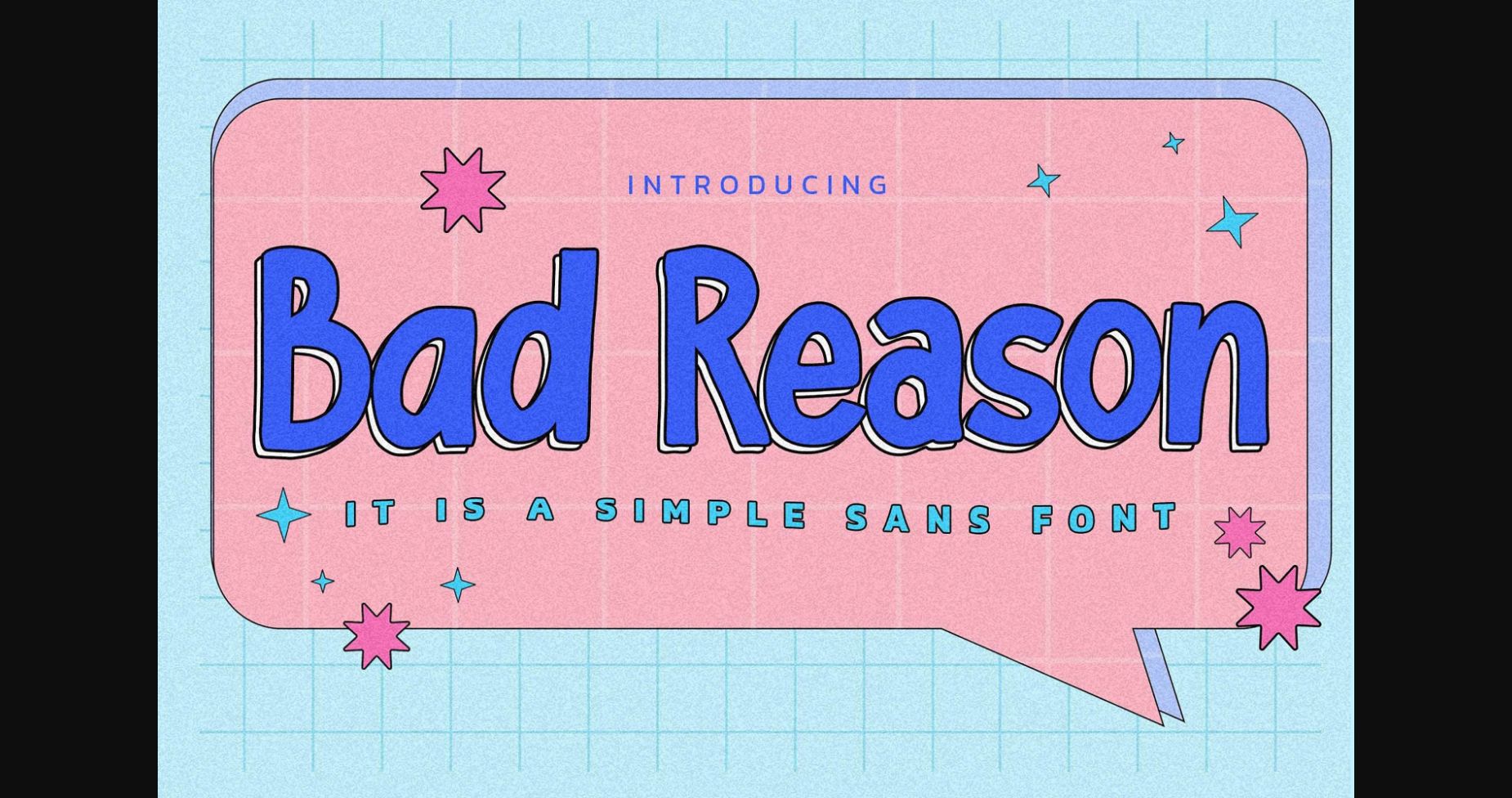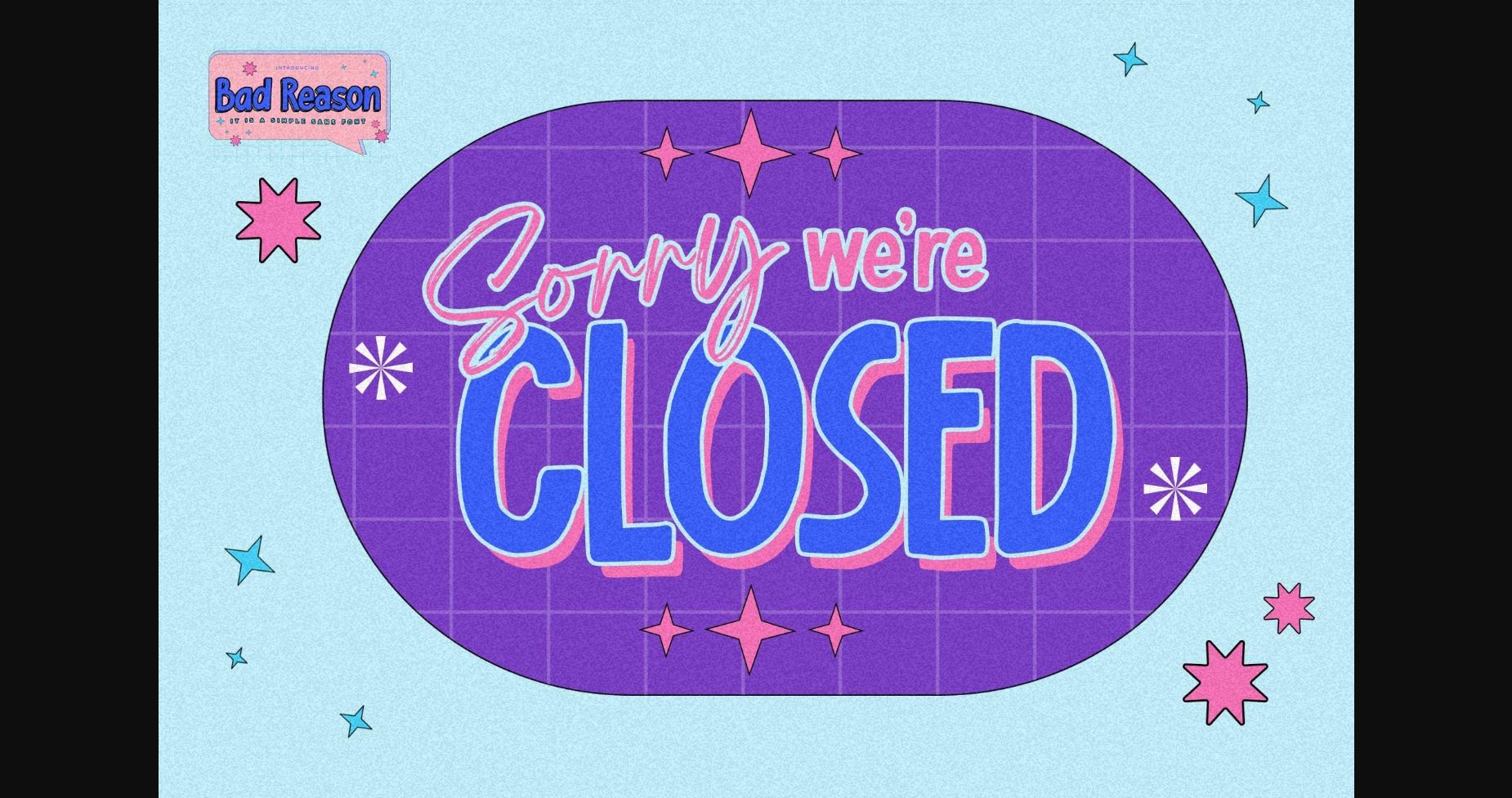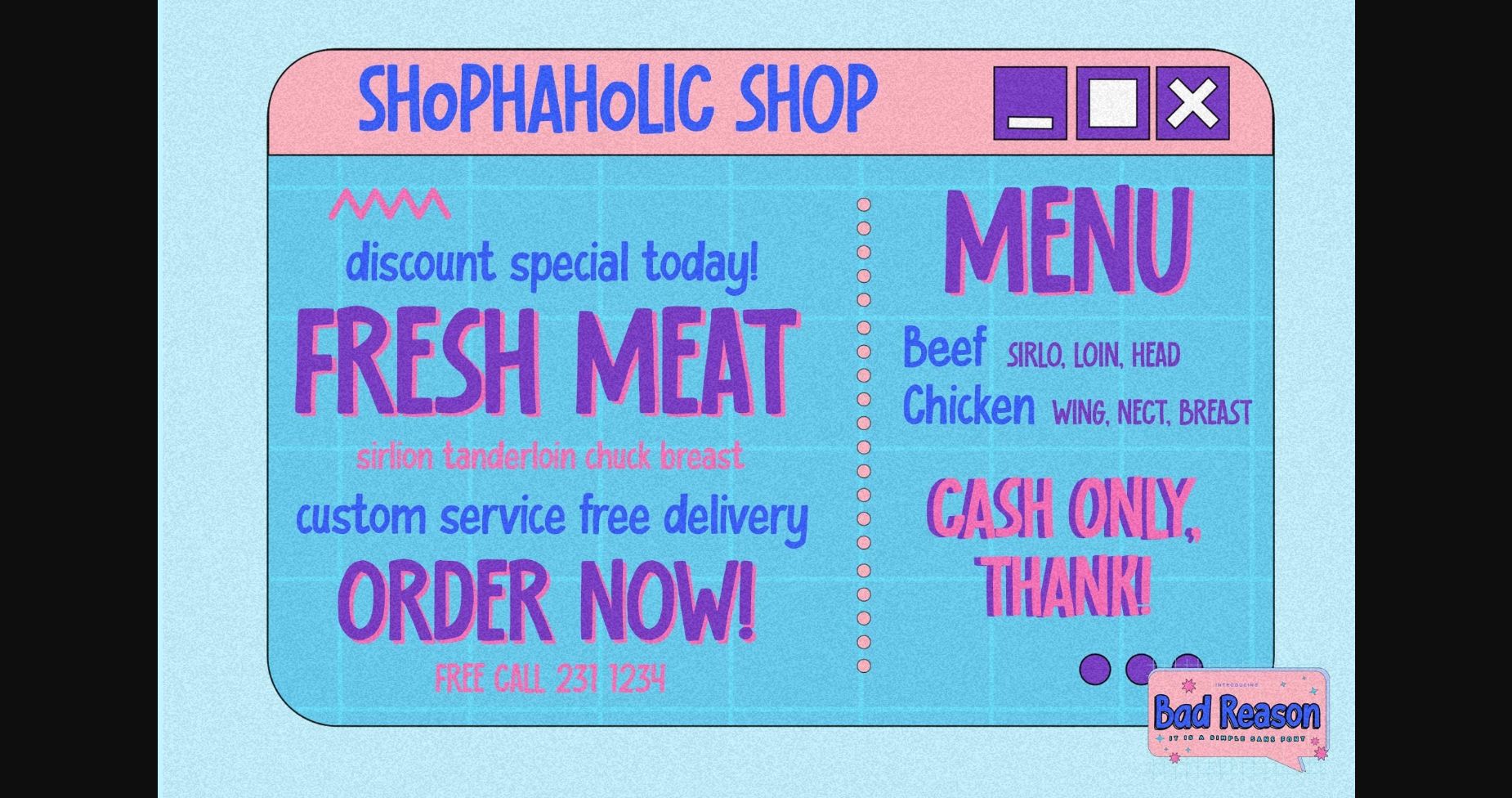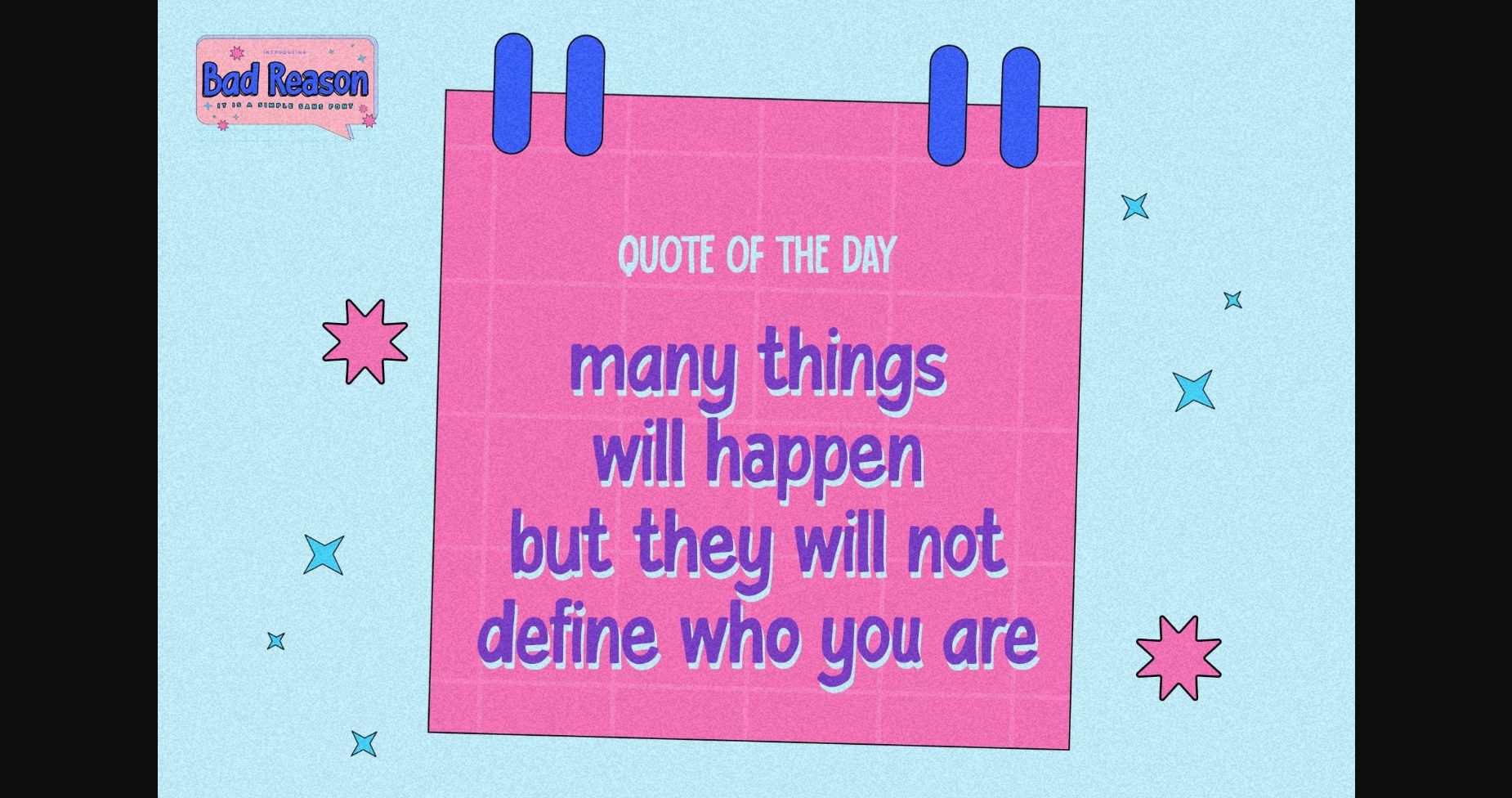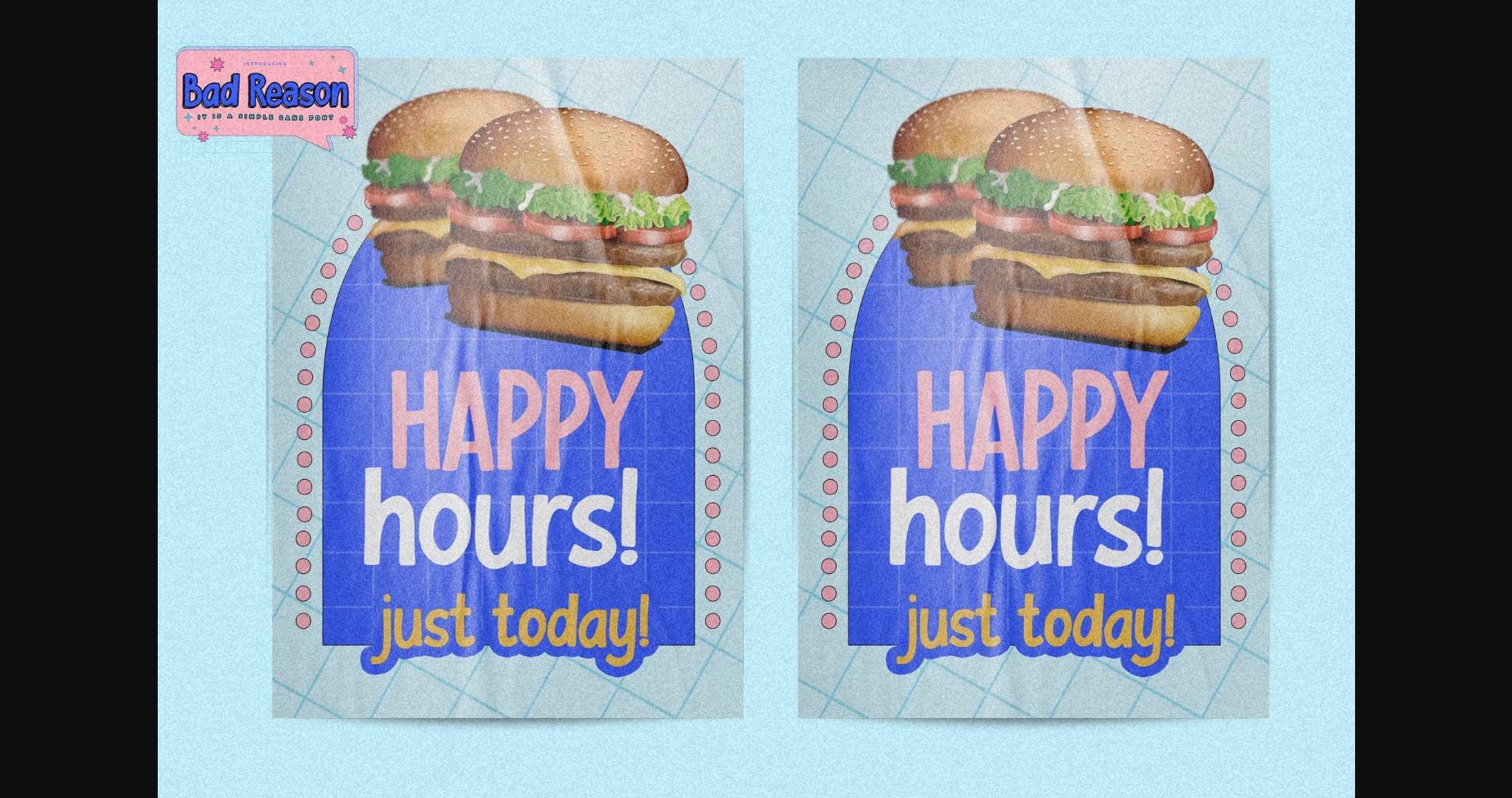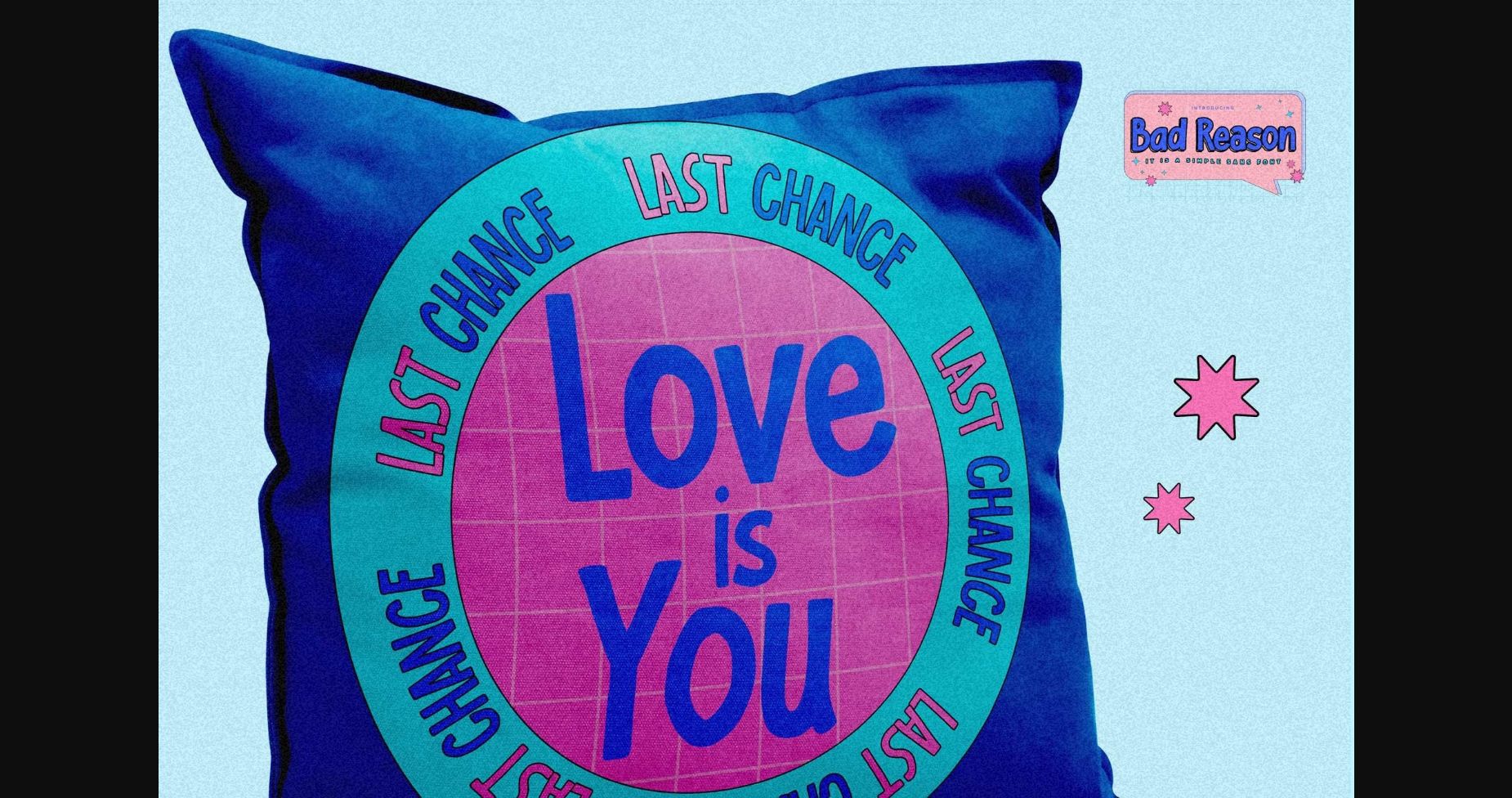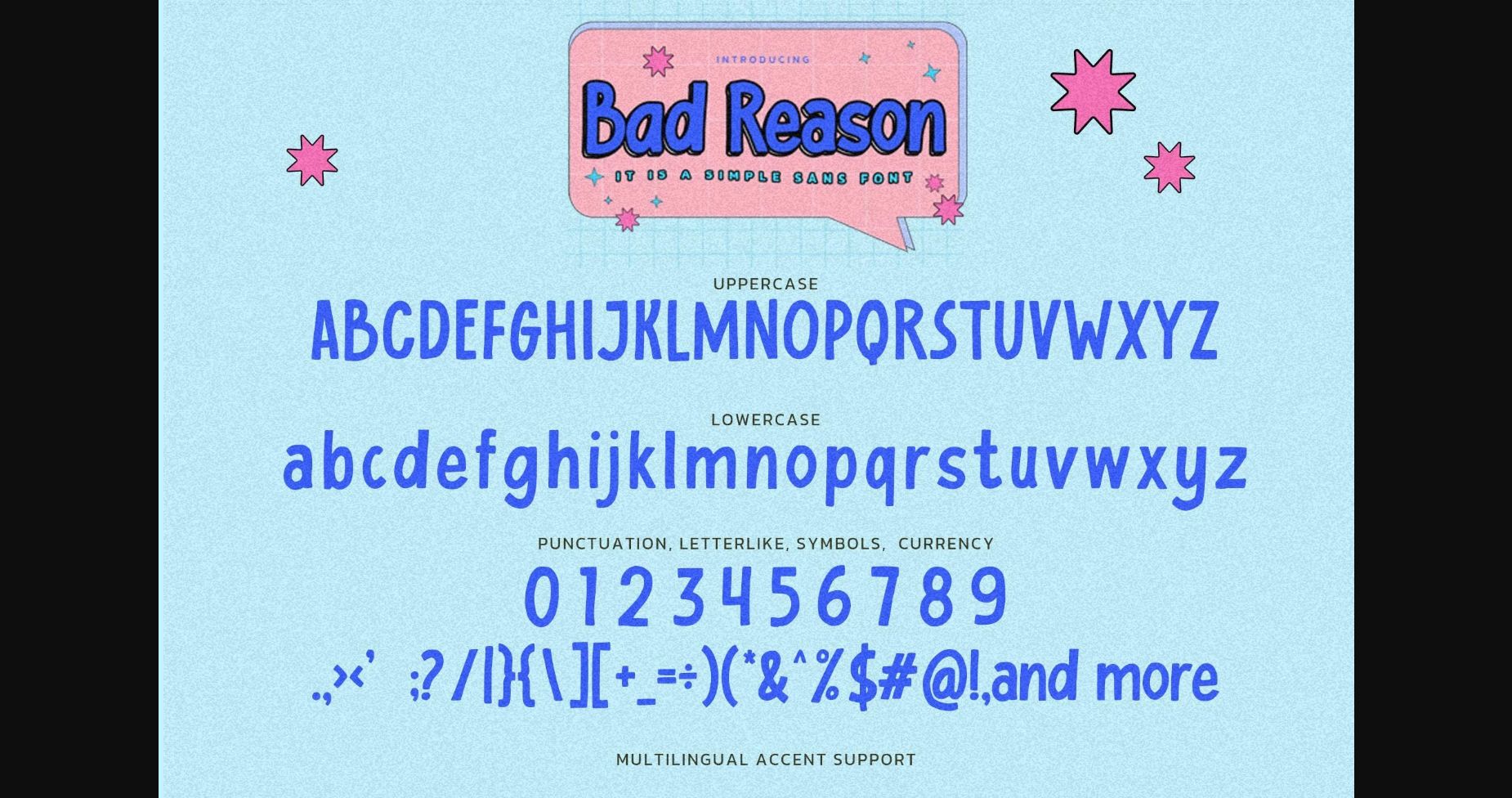
About Bad Reason Font
Bad Reason is a Simple Sans Font with a natural feel. This handmade font will give your design a beautiful natural touch. It is perfect for any design project such as invitations, logos, book covers, crafts, or any design purposes.
It will also fulfill your design needs for quotes, sports themes, logotypes, wordmarks, etc.